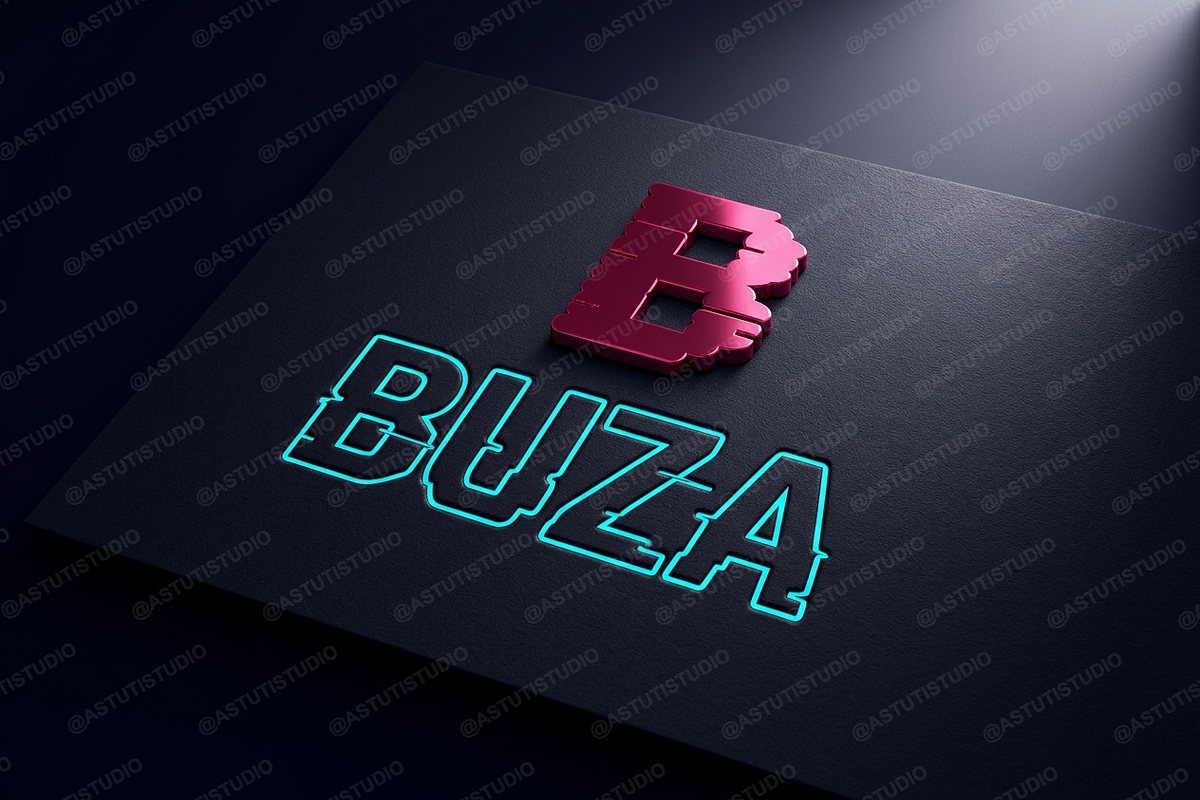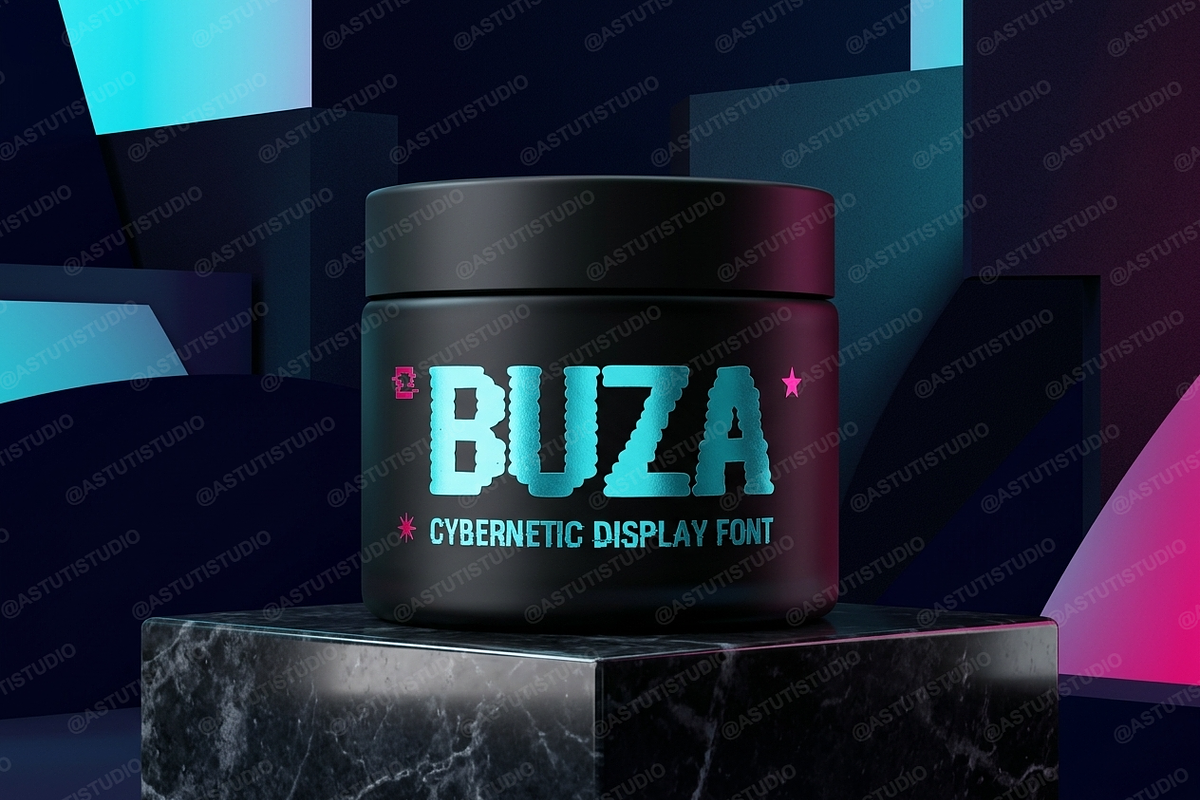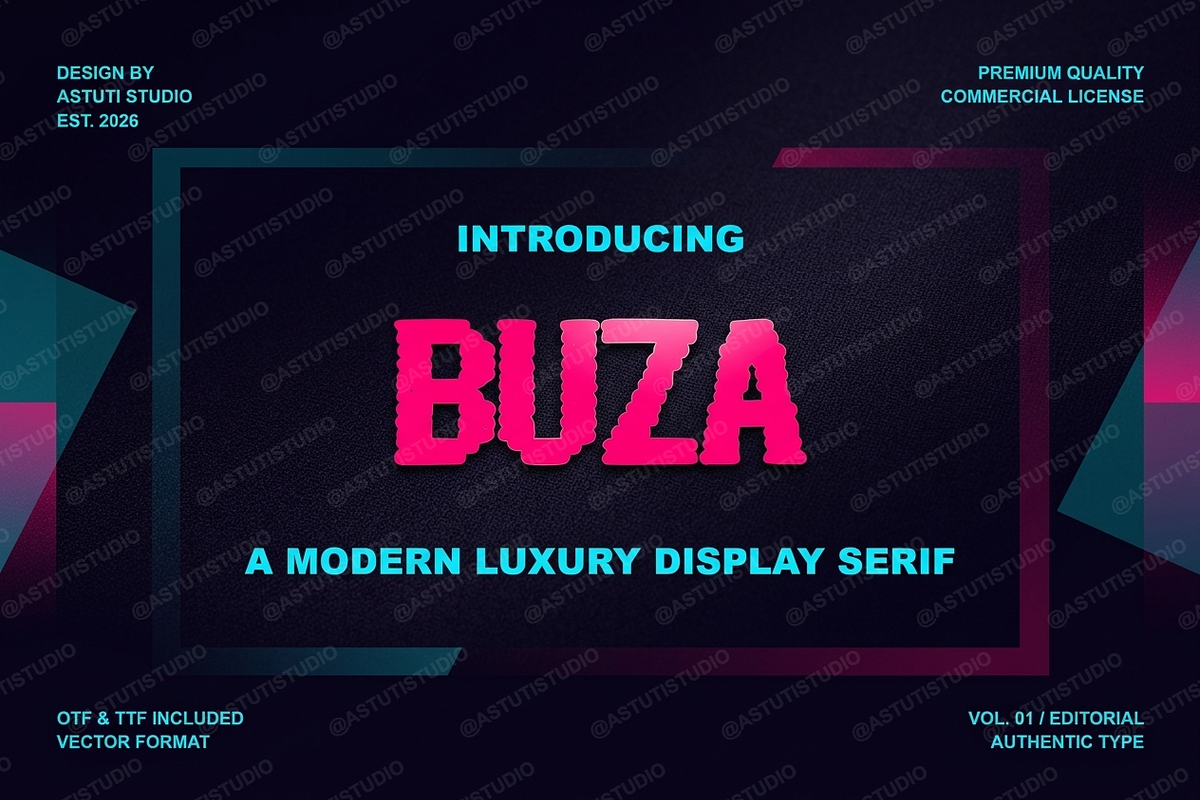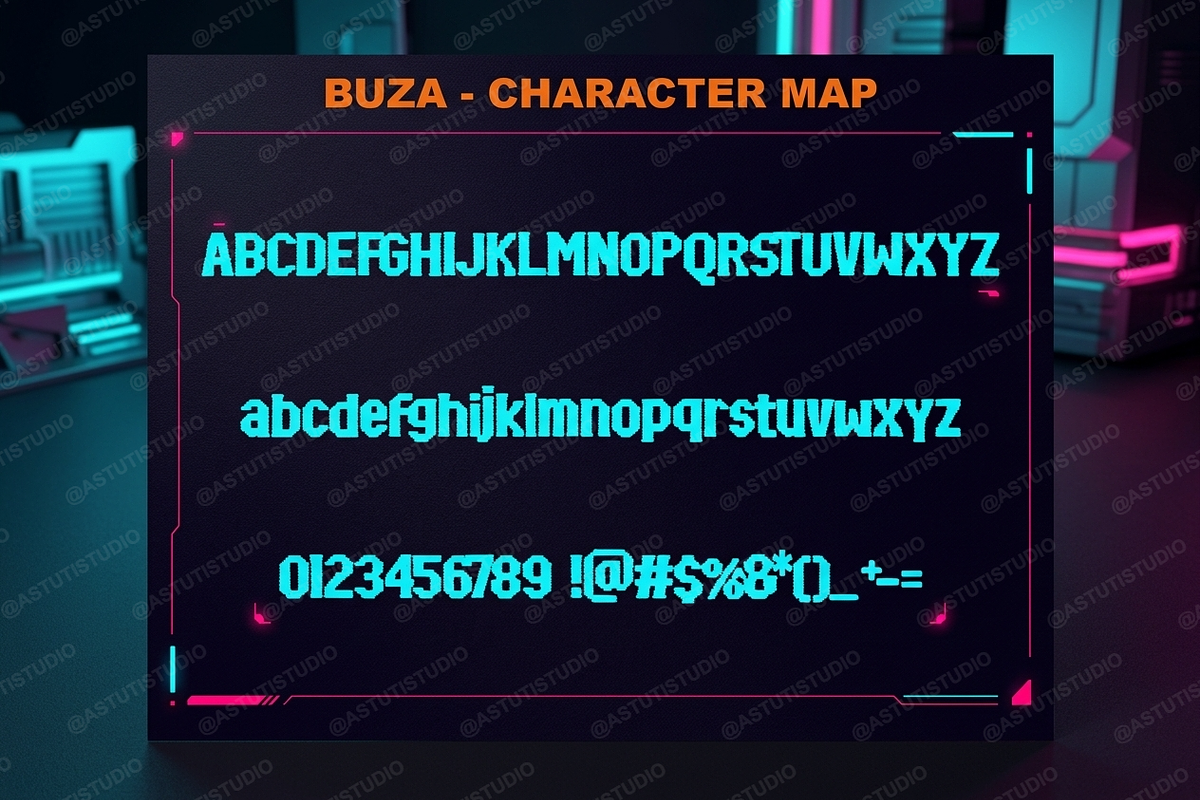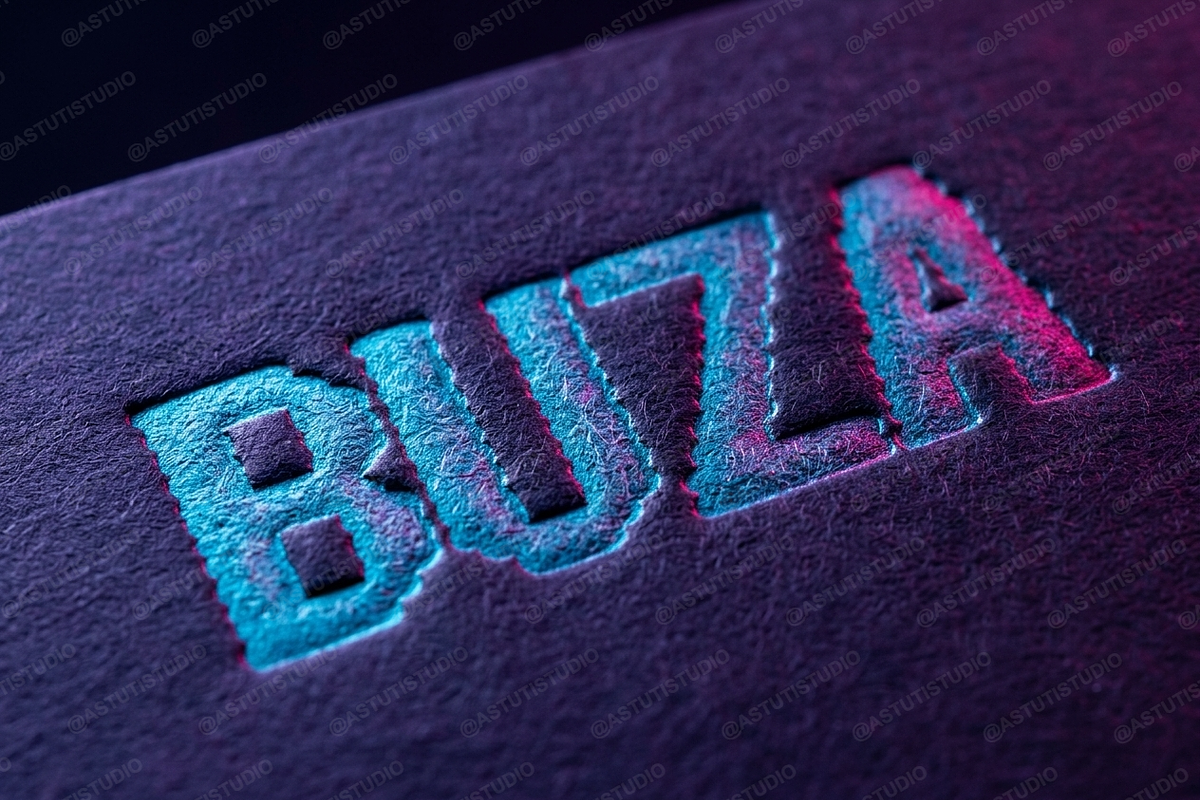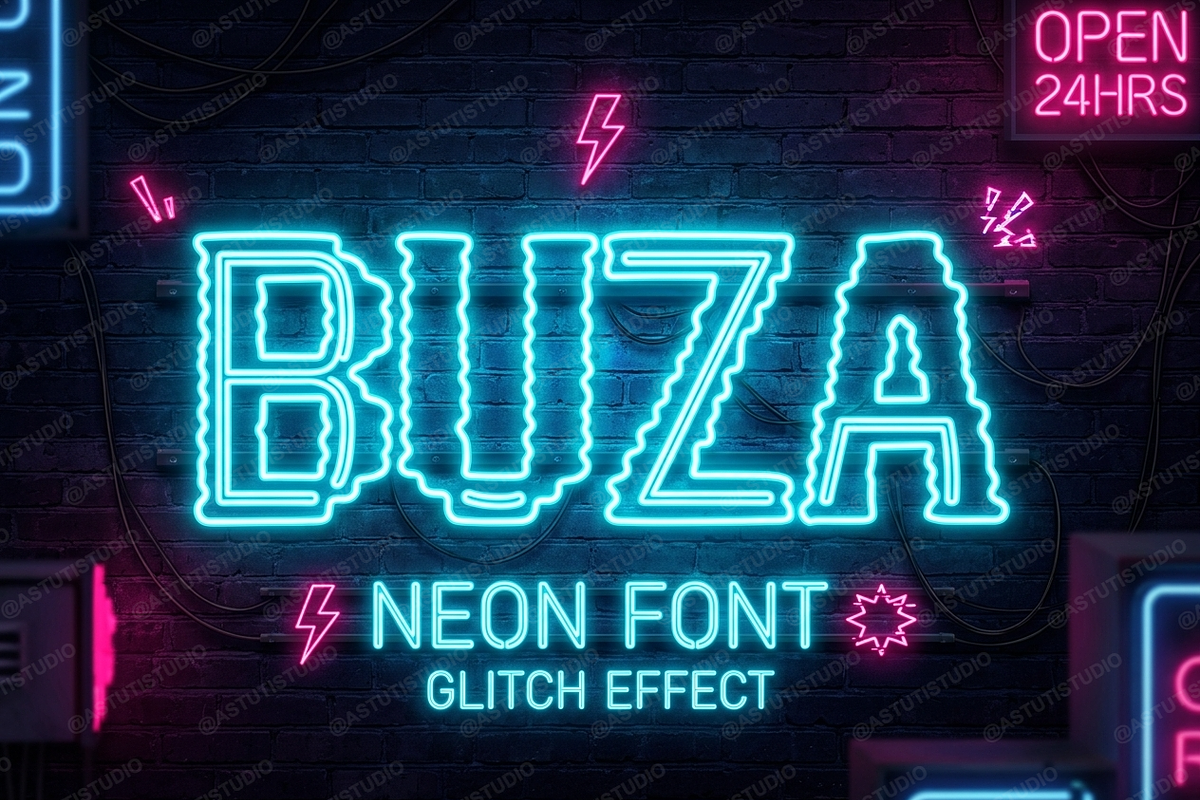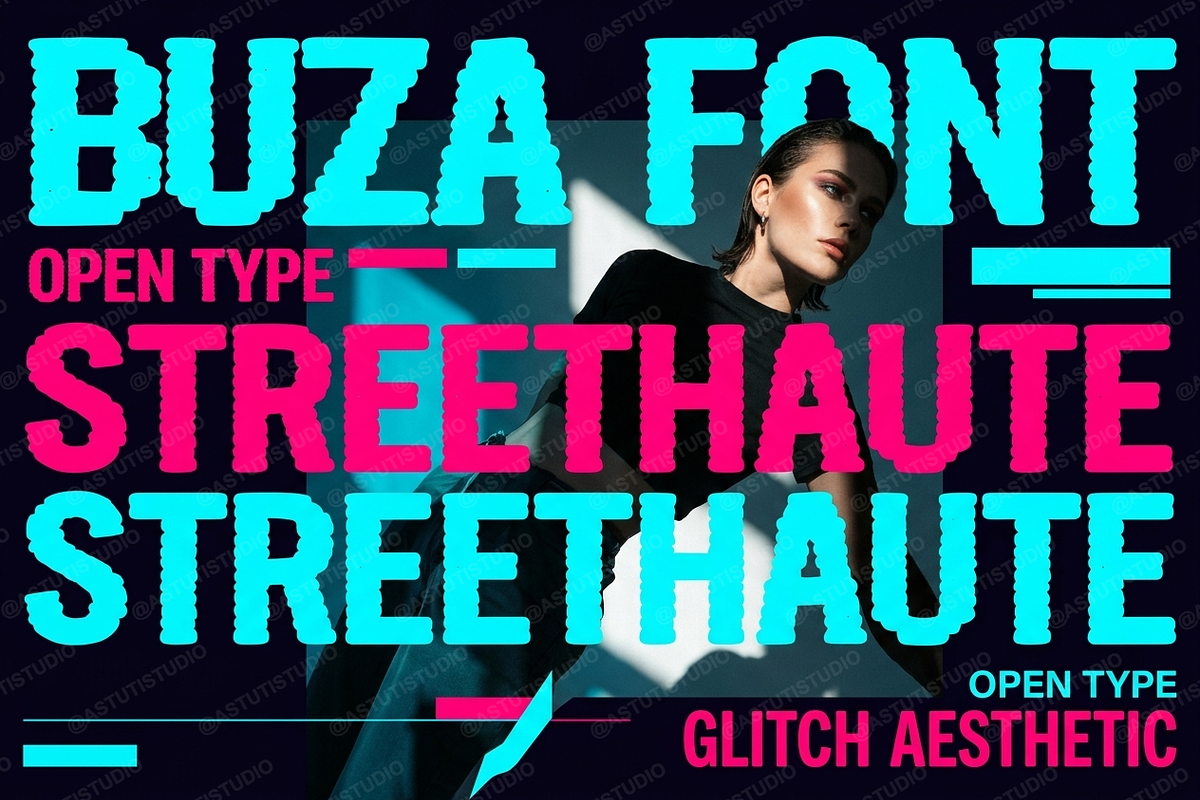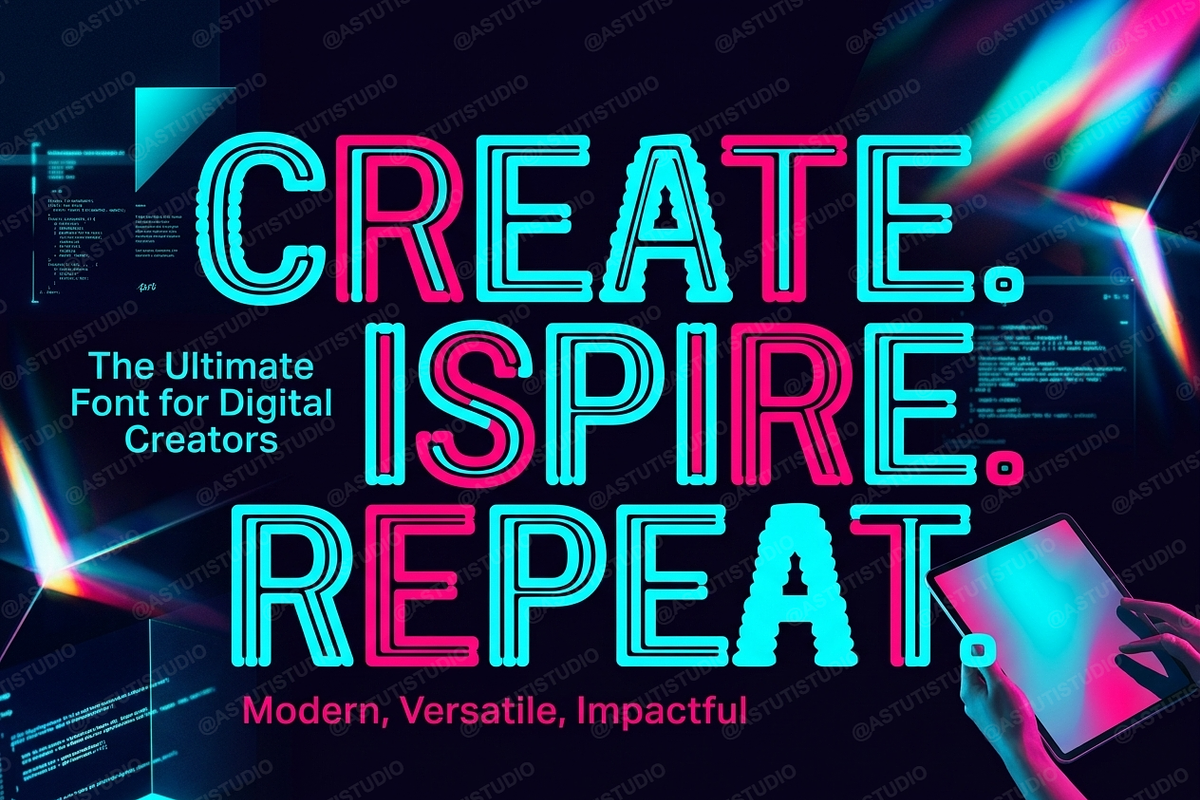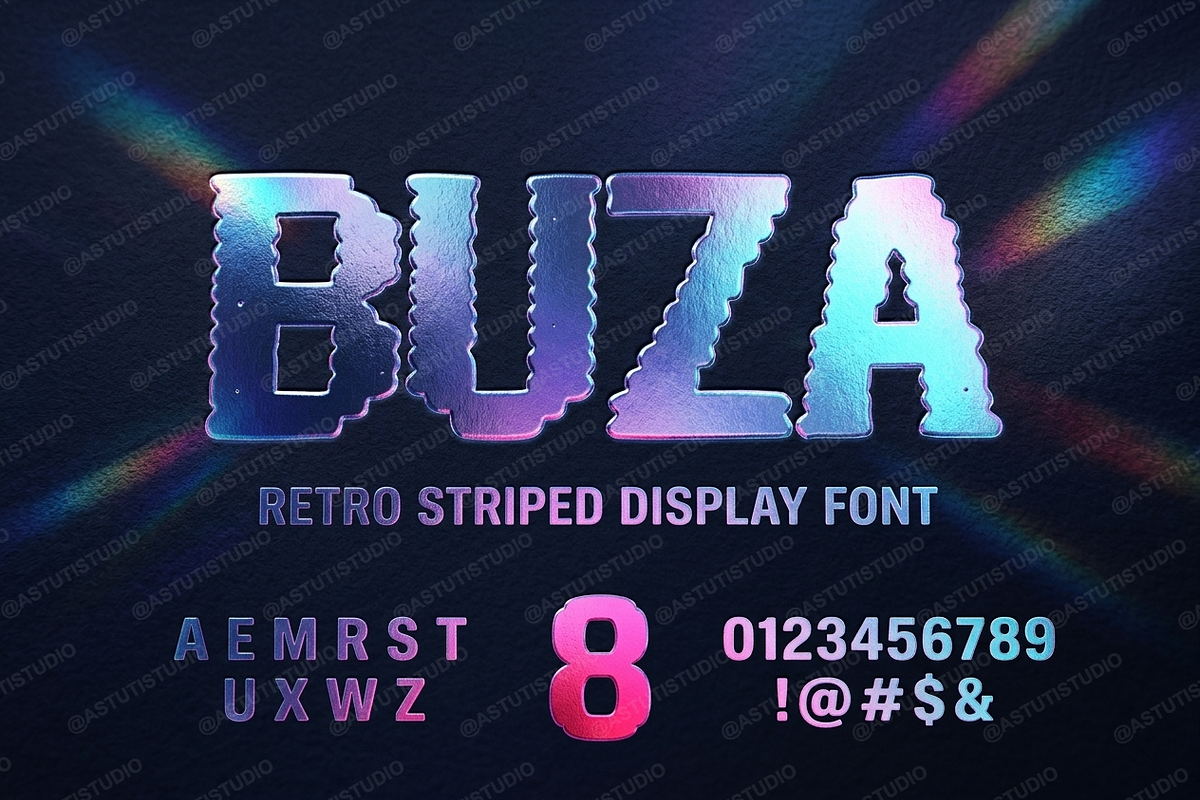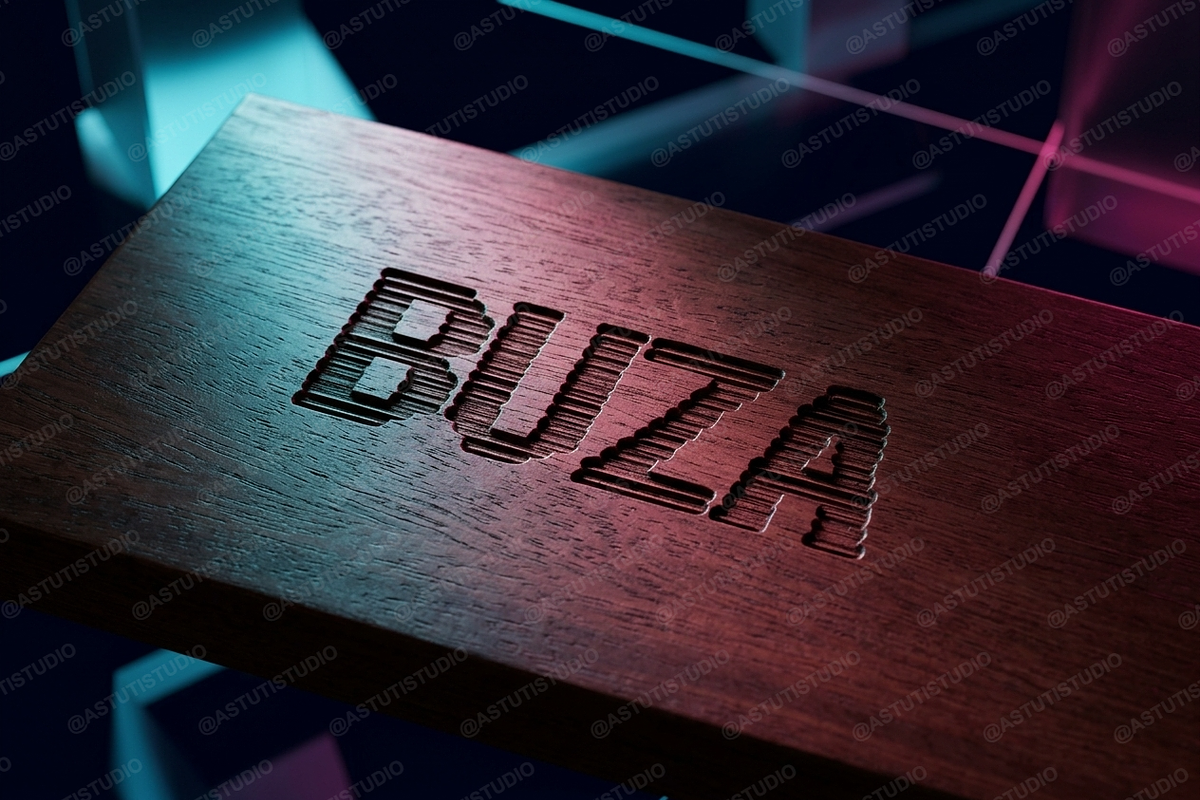
Buza | Elegant & Sophisticated Serif
Elevate your creative vision with Buza, a premium serif typeface crafted for high-end aesthetics. Buza combines timeless elegance with a modern edge, making it the definitive choice for designers seeking sophistication and clarity. Whether you are building a luxury brand identity or designing a high-fashion editorial layout, Buza provides a polished and professional foundation for your work.
- Luxury Branding and Identity
- Editorial and Magazine Layouts
- Sophisticated Social Media Content
- Wedding Invitations and Stationery
- High-End Packaging Design
- Distinctive high-contrast letterforms for a refined look
- A collection of elegant ligatures for unique character combinations
- Comprehensive multilingual support for global reach
- Precise kerning and balanced proportions
- Clean, legible design at both display and body text sizes